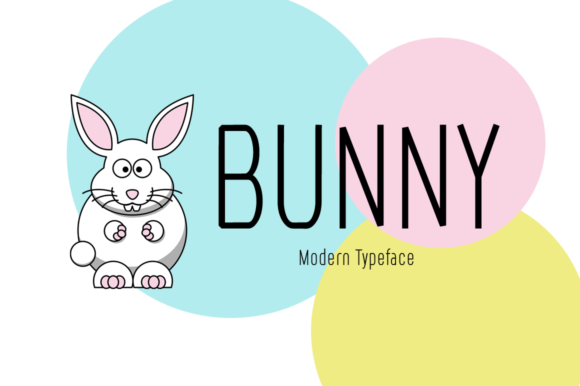
The Bunny Font: A Clean, Modern, and Friendly Design Essential
I’ll never forget the time I was working on a project for a client who wanted a font that was both modern and approachable. I spent hours scouring the internet for the perfect typeface, but nothing seemed quite right. That was until I stumbled upon the Bunny font. With its clean lines, friendly vibe, and versatility, it quickly became the perfect solution for my design needs. In this article, I’ll share my experience with the Bunny font, its features, and how to make the most of it in your designs.
An Honest Review of Bunny Font
What I Love About Bunny Font
- ✨ Clean and modern design: The Bunny font boasts a sleek and contemporary look that’s perfect for a wide range of design applications.
- ✅ Friendly and approachable: The font’s friendly vibe makes it ideal for designs that require a personal touch.
- 💡 Versatile: From body text to headlines, the Bunny font can be used in various contexts, making it a valuable addition to any designer’s toolkit.
While the Bunny font is an excellent choice for many design projects, there are a few minor quirks to be aware of:
- 🤔 Limited serif options: The Bunny font is primarily designed as a sans-serif typeface, which might limit its use in certain design contexts that require serif fonts.
- ⚠️ Some glyphs may require manual adjustment: Depending on the design application and platform used, some glyphs or special characters might require manual adjustment to ensure proper rendering.
The Story Behind Bunny Font
The Bunny font was designed with the goal of creating a clean, modern, and friendly typeface that could be used in a wide range of design applications. The designer, inspired by the simplicity and elegance of rabbit illustrations, aimed to create a font that would evoke a sense of approachability and warmth. Through a careful balance of curves and lines, the Bunny font was born, offering a unique and versatile design solution.
Q: What is the Bunny font best suited for?
A: The Bunny font is a versatile typeface suitable for a wide range of design applications, including body text, headlines, and more.
Q: Is the Bunny font suitable for digital and print designs?
A: Yes, the Bunny font is optimized for both digital and print designs, making it a great choice for a variety of projects.
Q: Can I use the Bunny font in multiple languages?
A: The Bunny font supports a range of languages, but it’s essential to check the font’s language support and character set to ensure it meets your specific needs.